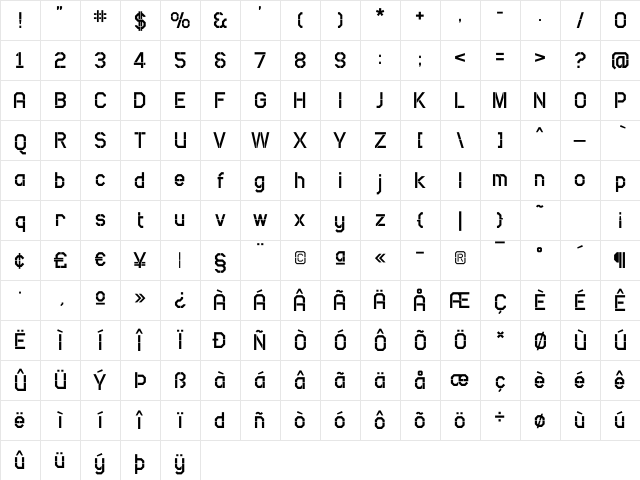
Camo SansHeavy Regular
Design Context for Camo SansHeavy
Camo SansHeavy is a composed and adaptable typeface that performs quietly and consistently across a wide range of design contexts.
Pro Tip: Use Camo SansHeavy in both headline and body roles to test its range before committing to a single application.